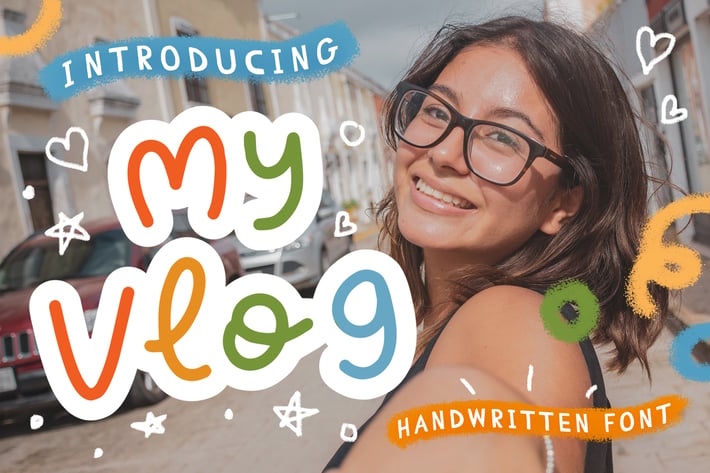
My Vlog - Handwritten Font
My Vlog - Handwritten Font can be used for various media like youtube channel thumbnails, vlog videos, invitations, packaging, poster, movie titles, book titles, social media, logos, branding, and others.